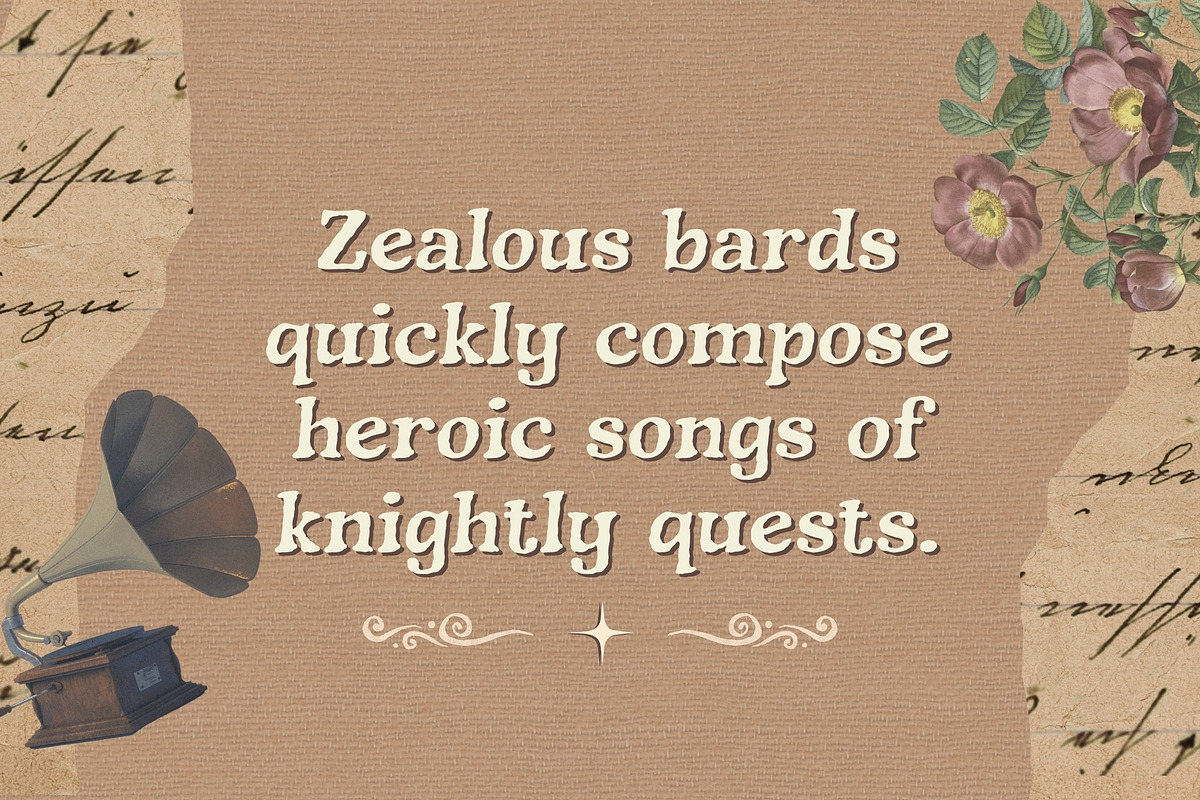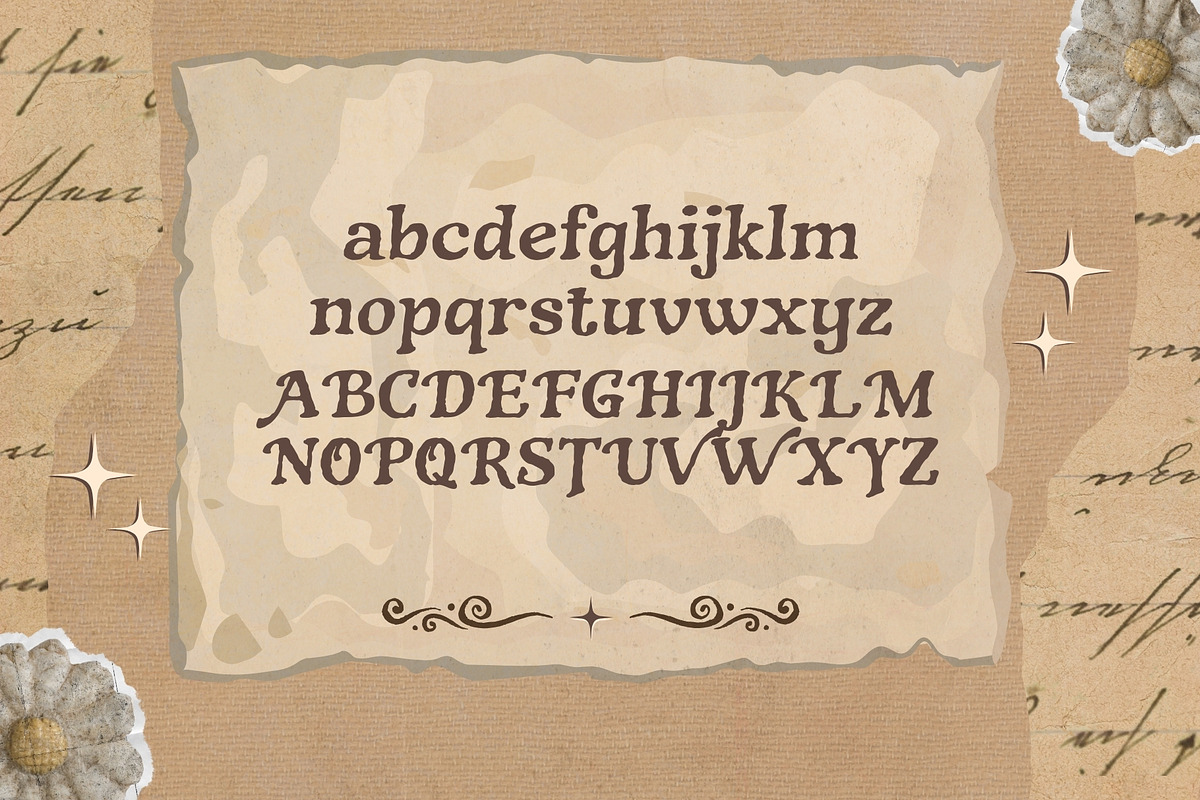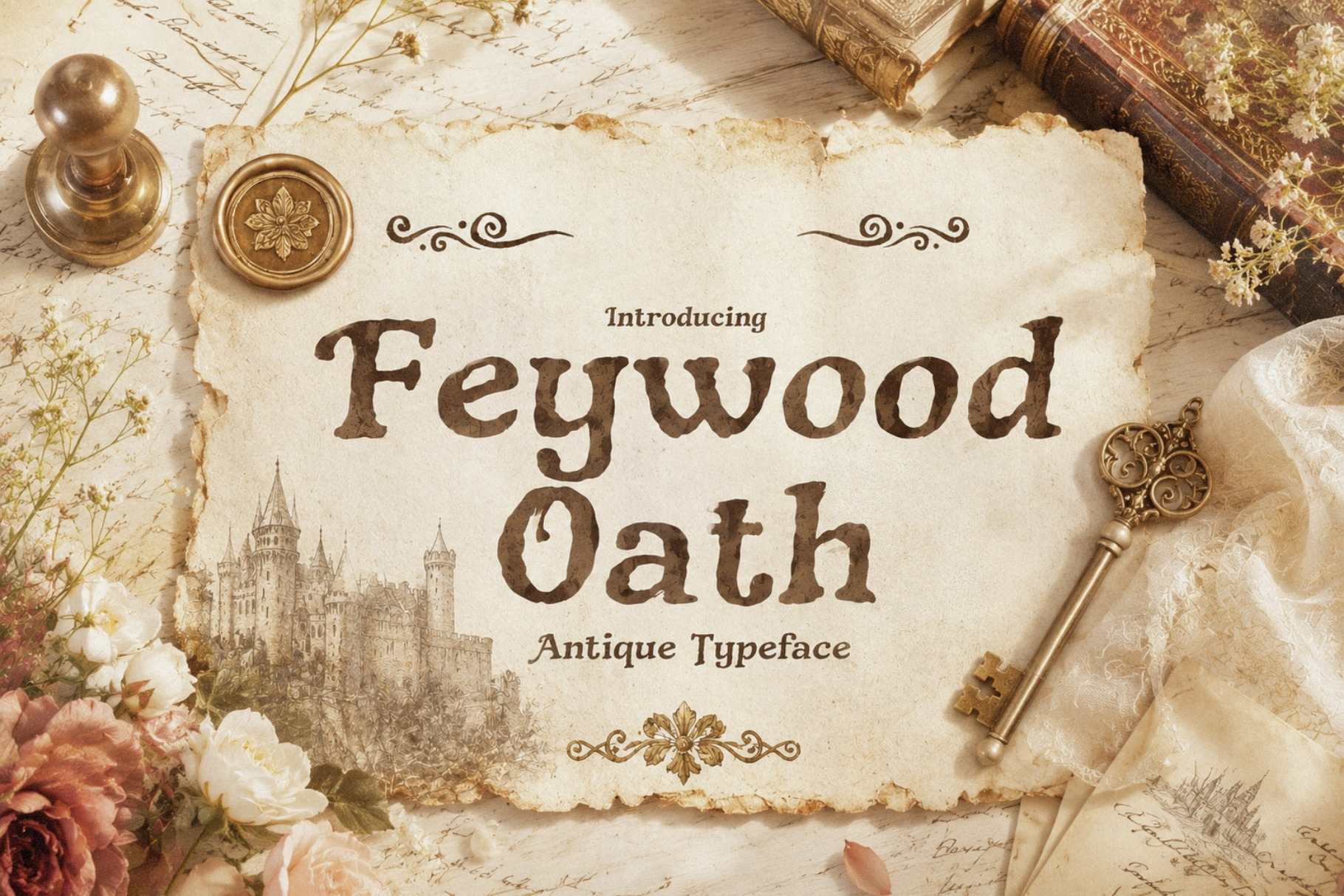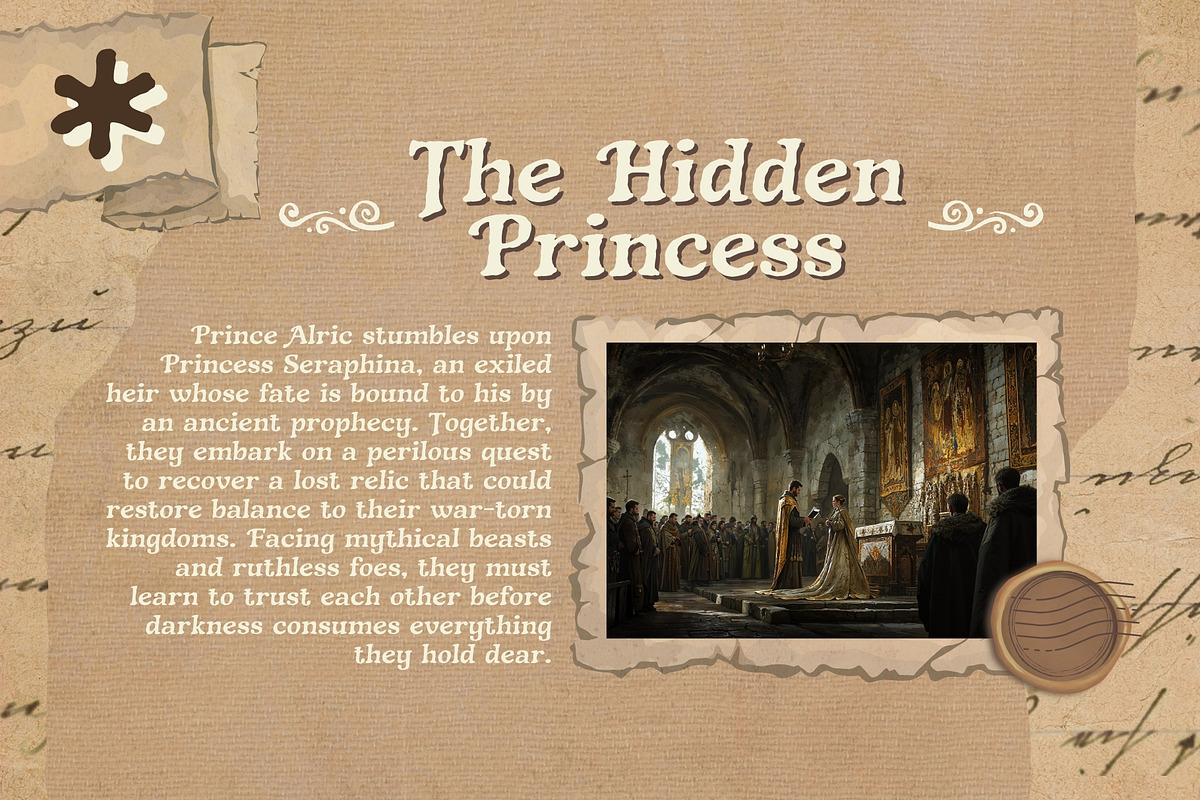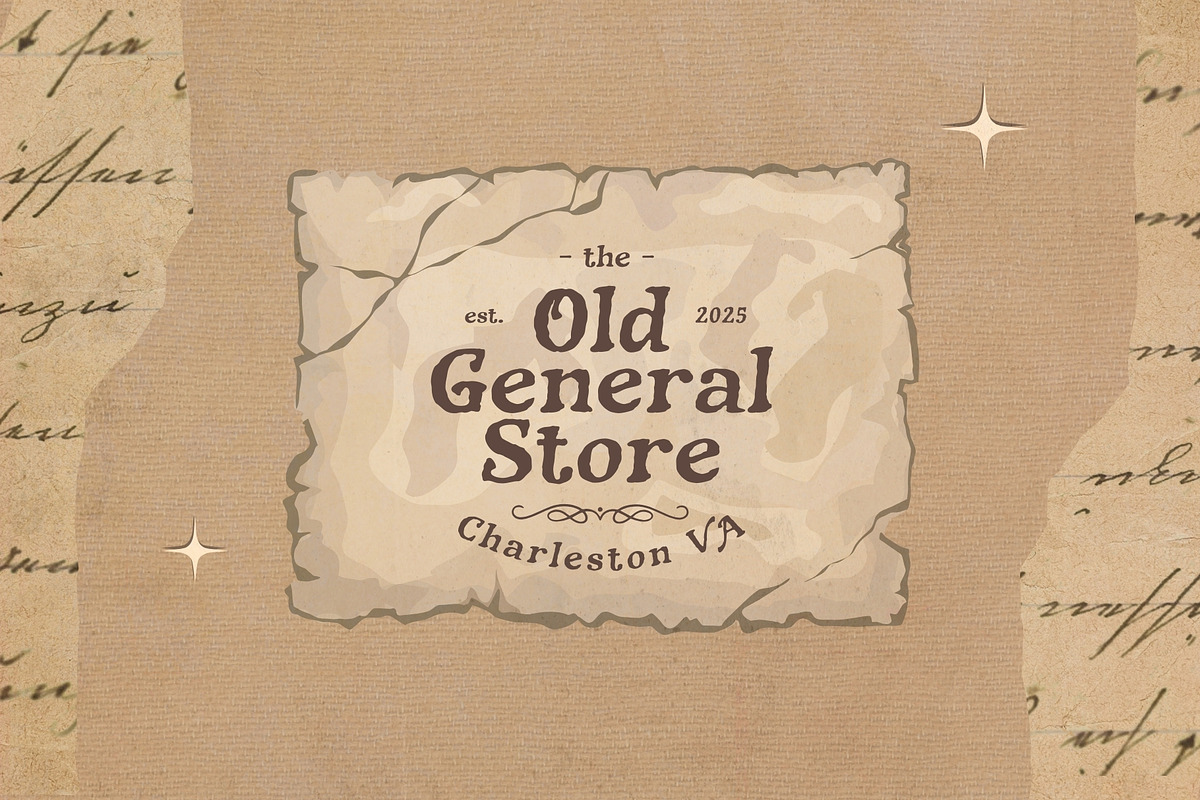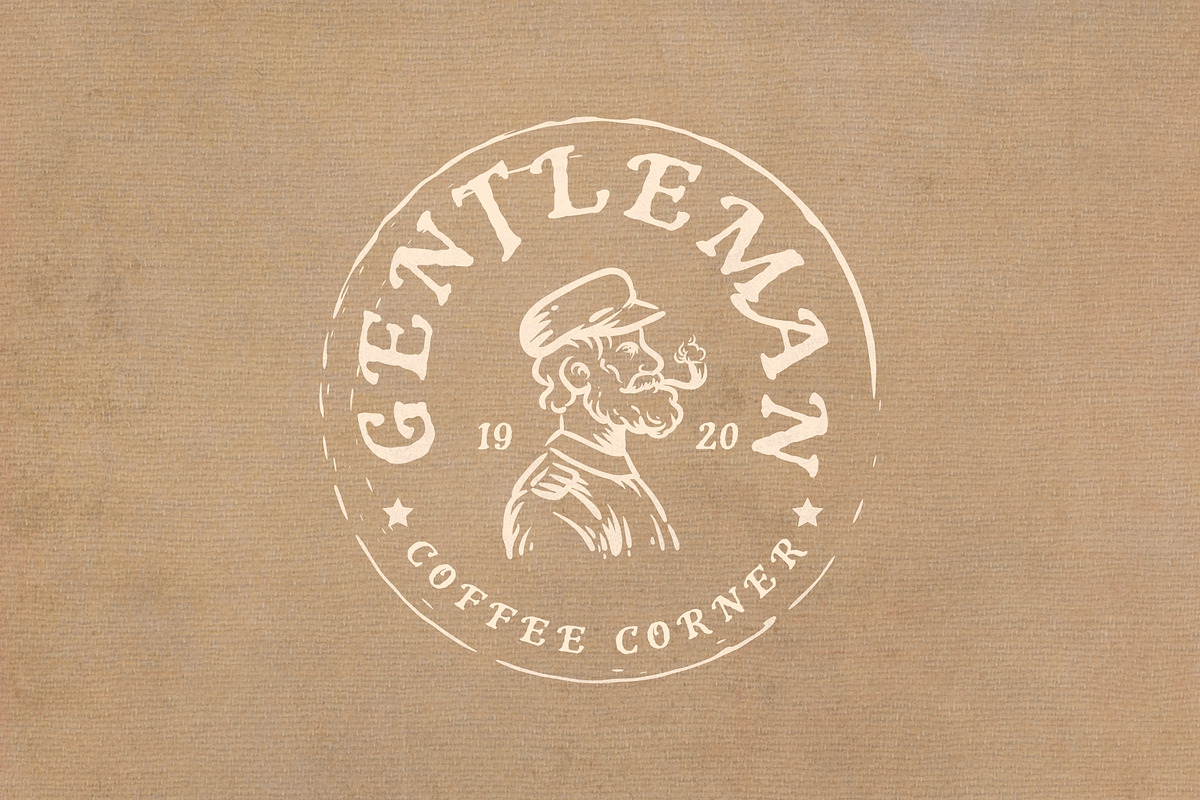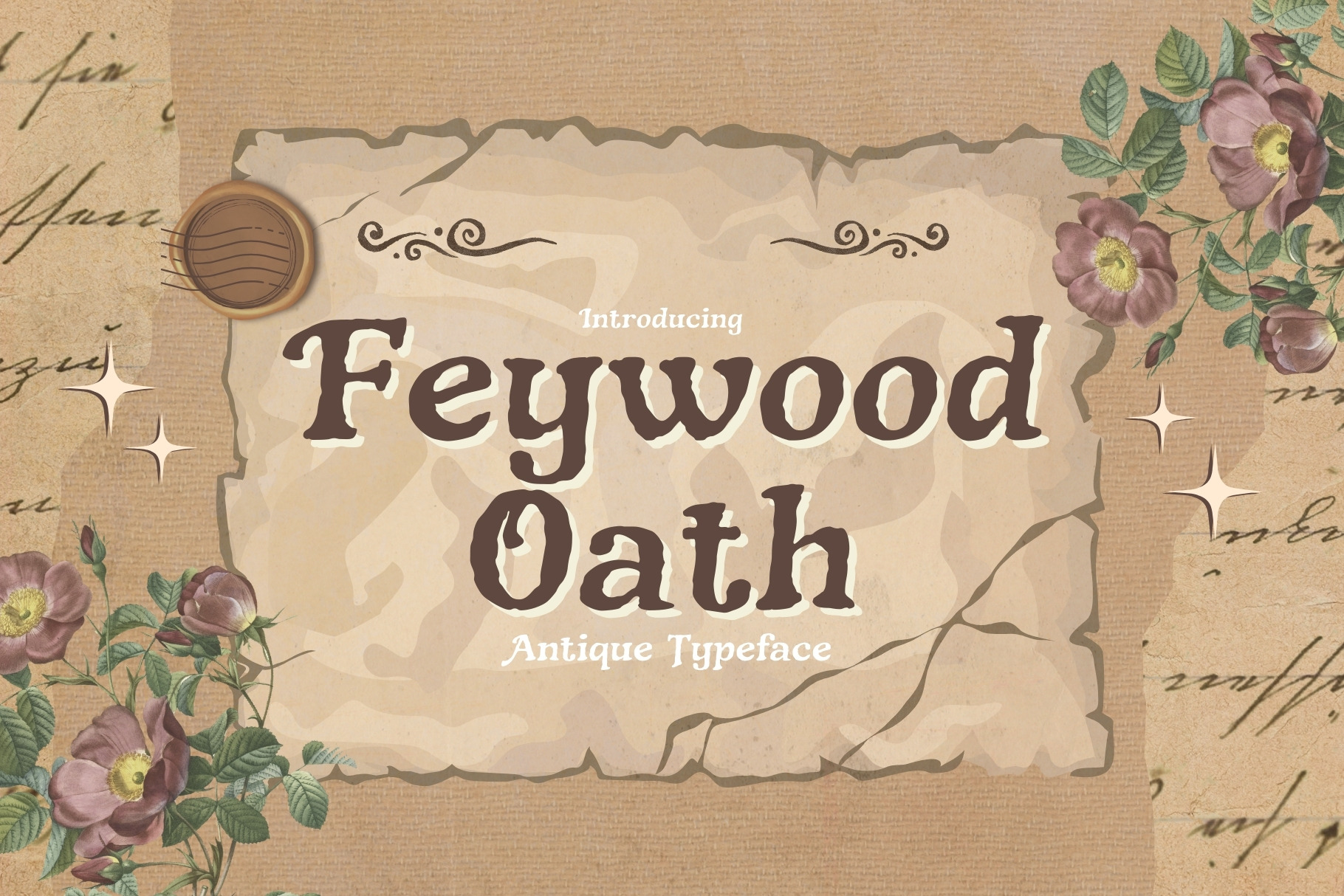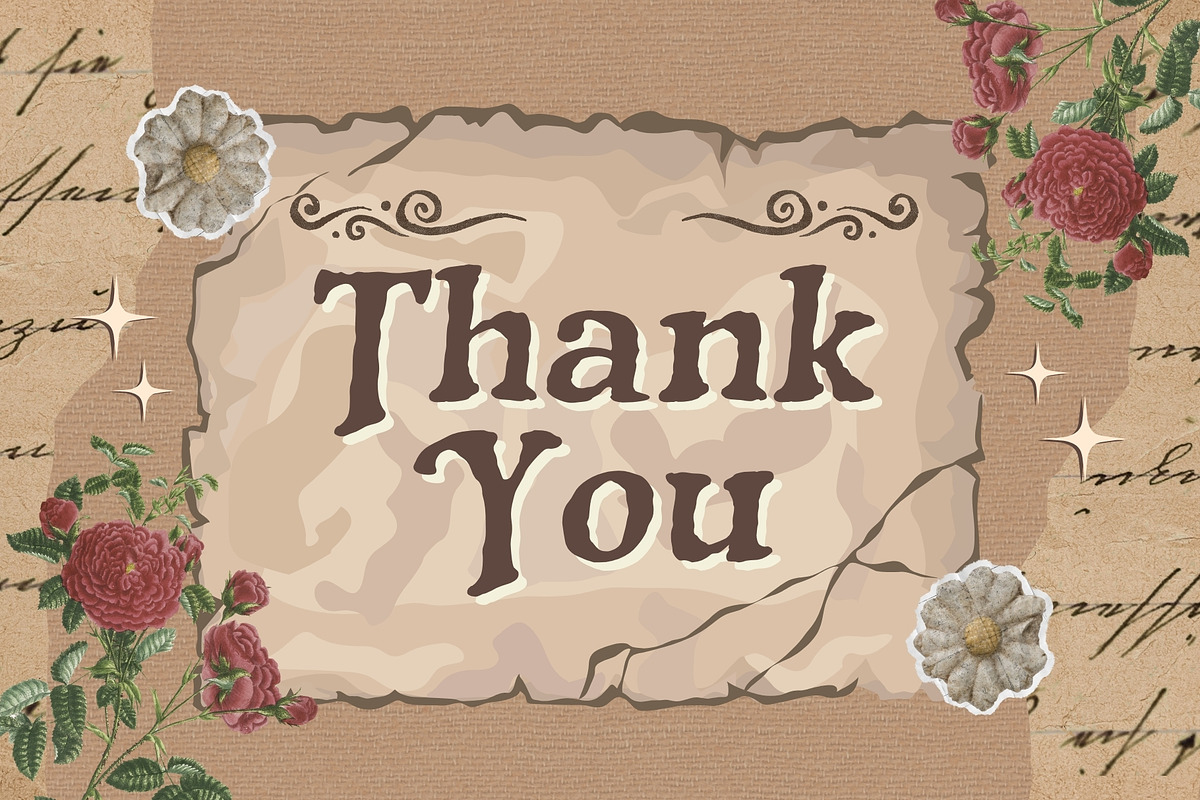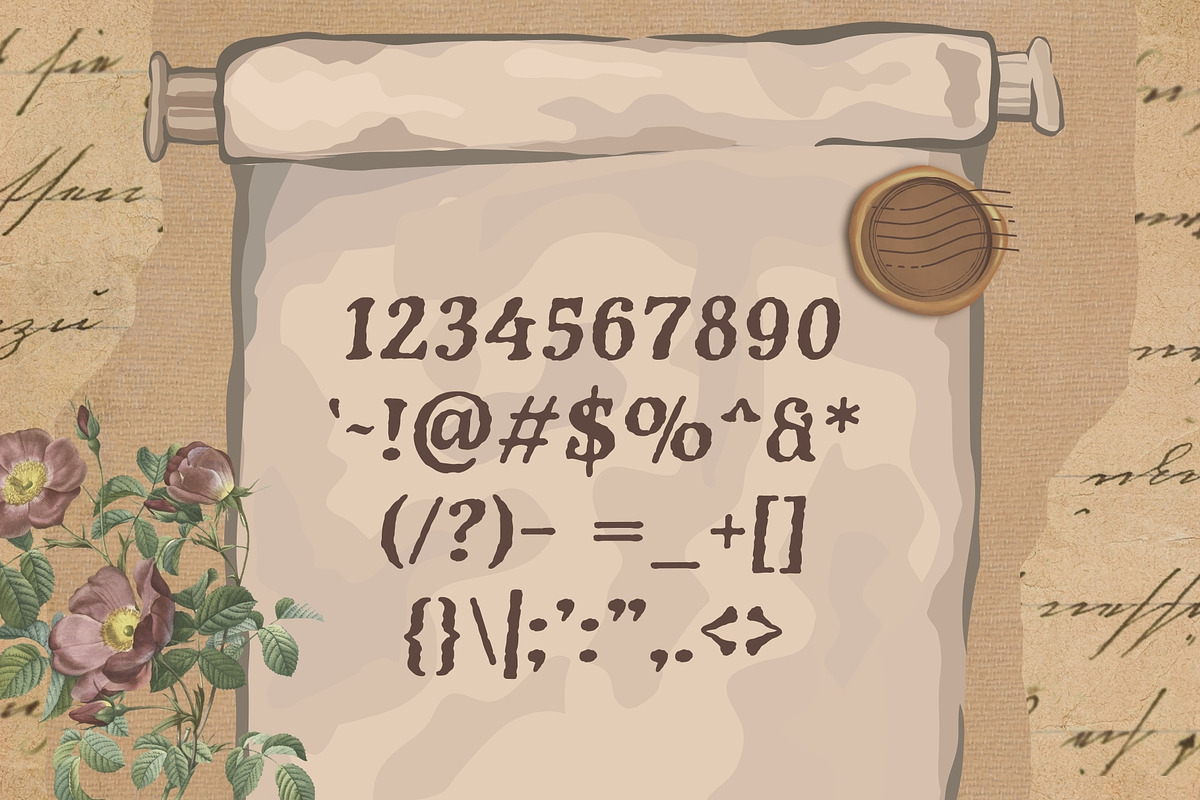
Feywood Oath - Antique Typeface
Step into the charm of a bygone era with Feywood Oath, an exquisite handwritten calligraphy font inspired by the elegance and mystery of Old English times. This antique vintage typeface evokes the artistry of medieval scribes, blending intricate flourishes with a weathered, authentic texture that feels pulled from the pages of a centuries-old manuscript.
Perfect for historical designs, fantasy branding, wedding invitations, or any project craving a touch of timeless sophistication, Feywood Oath brings a whisper of ancient oaths and forgotten tales to every letter. With its delicate yet bold strokes, this font is your quill to craft stories etched in history.